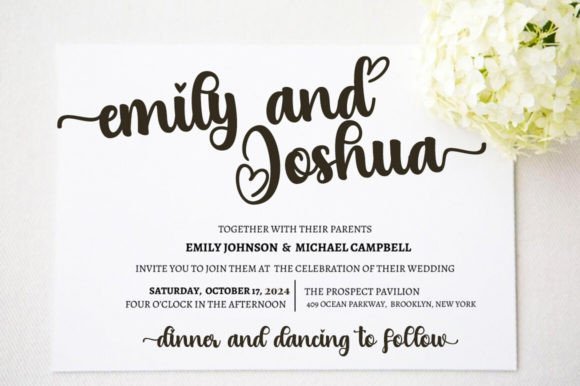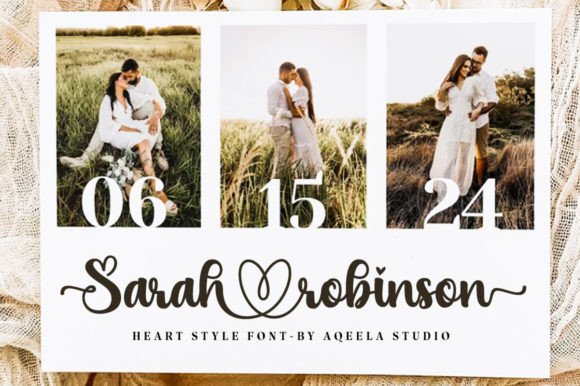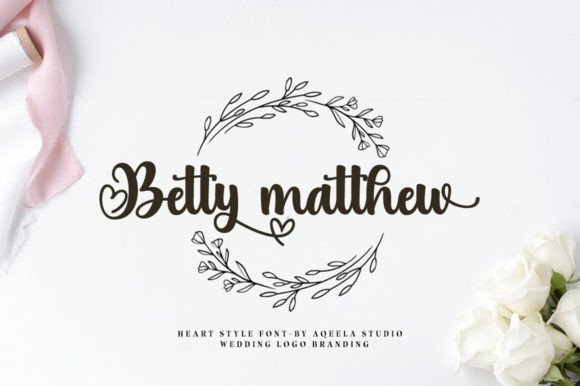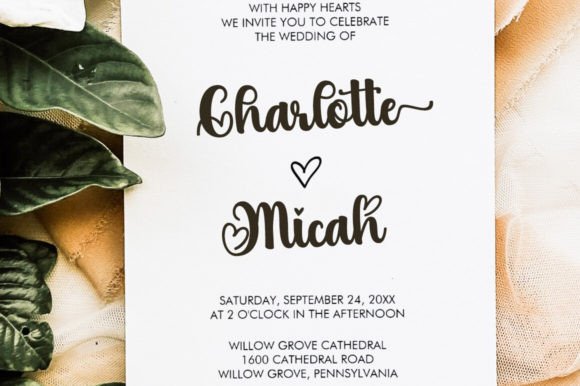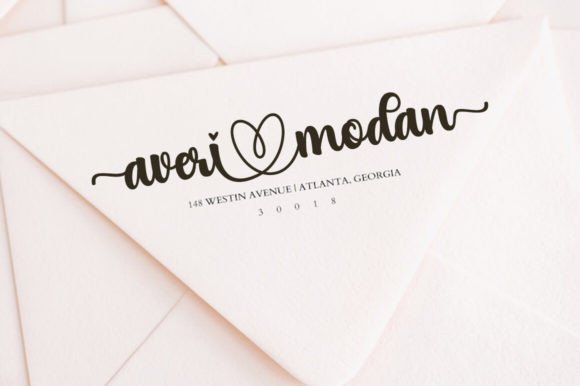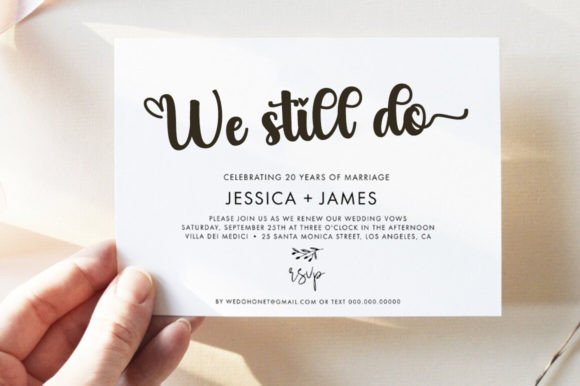
Introduction to Sahir Yesta Font
Sahir Yesta is a delightful handwritten font meticulously crafted with a touch of elegance, offering a unique blend of sophistication and charm.
Perfect for adding a personal touch to your designs, this font exudes a graceful flair that enhances any project with its artistic and refined style .
Key Features of Sahir Yesta Font
Why Choose Sahir Yesta Font?
Sahir Yesta Font offers exceptional quality and versatility, making it a valuable addition to your design toolkit. Whether you’re creating for personal projects or commercial use, Sahir Yesta Font delivers professional results.